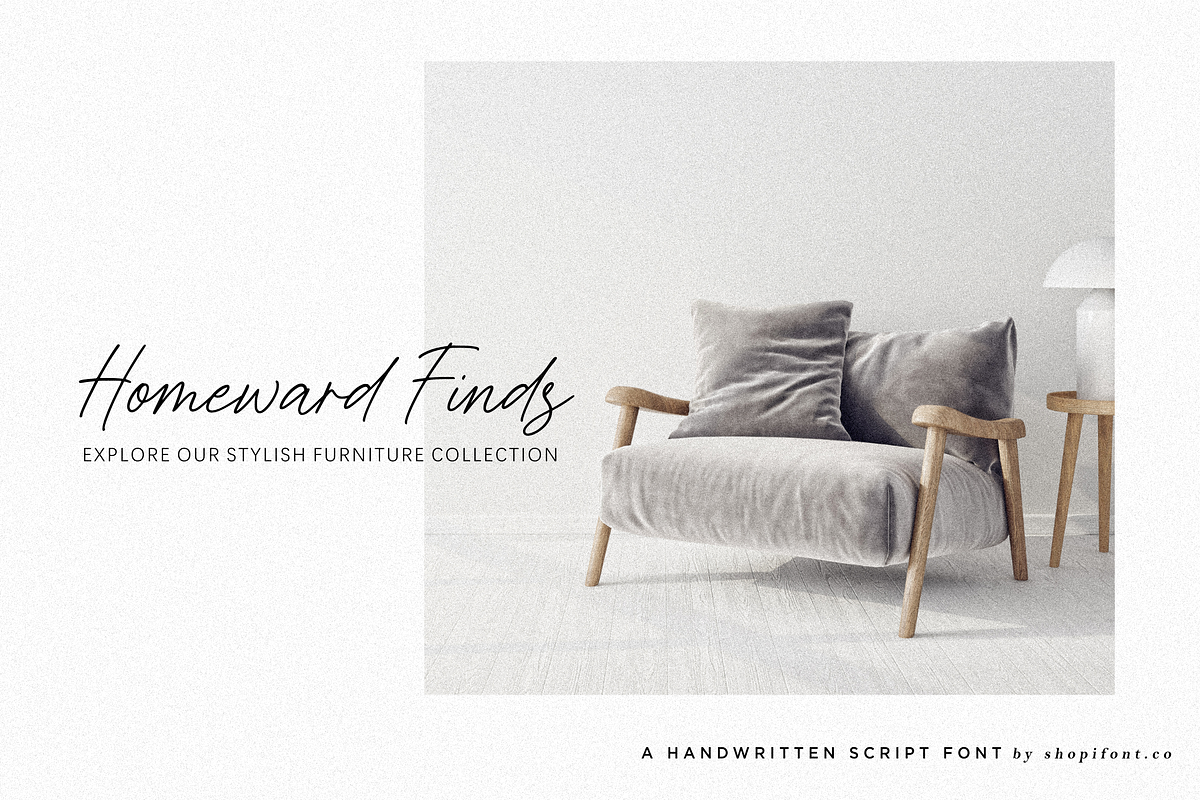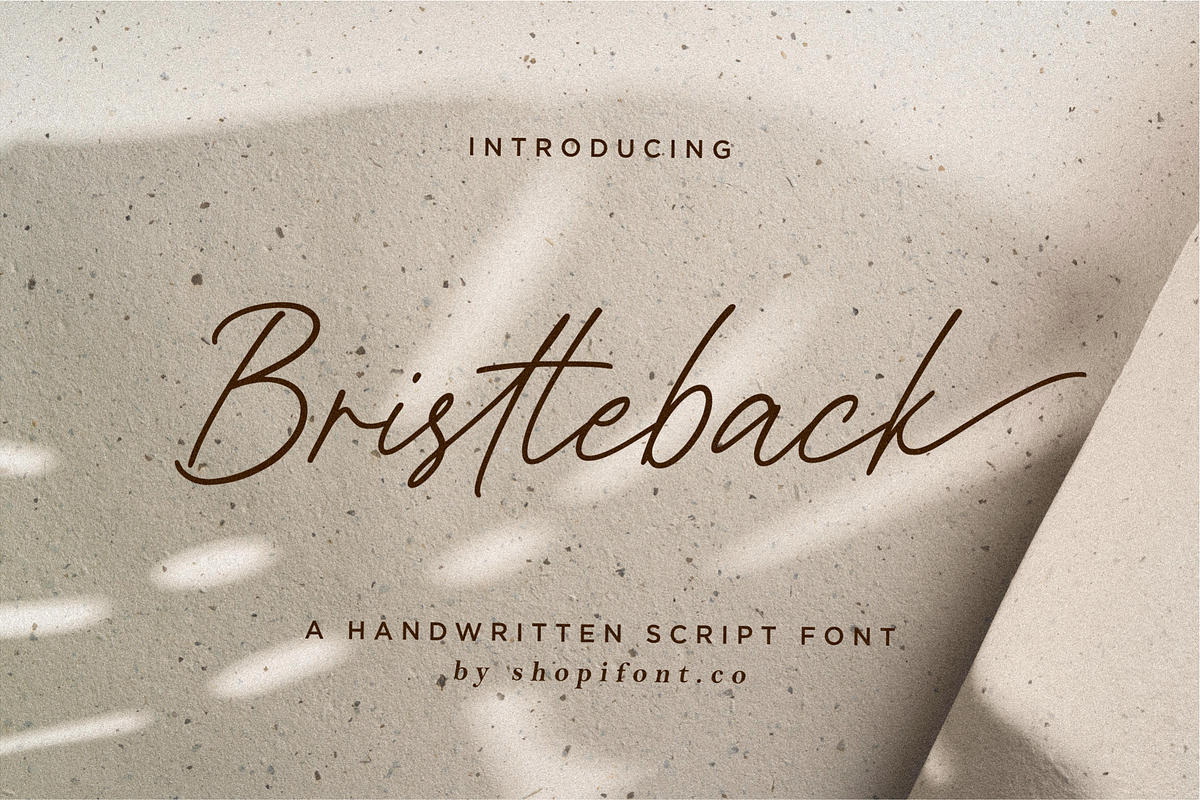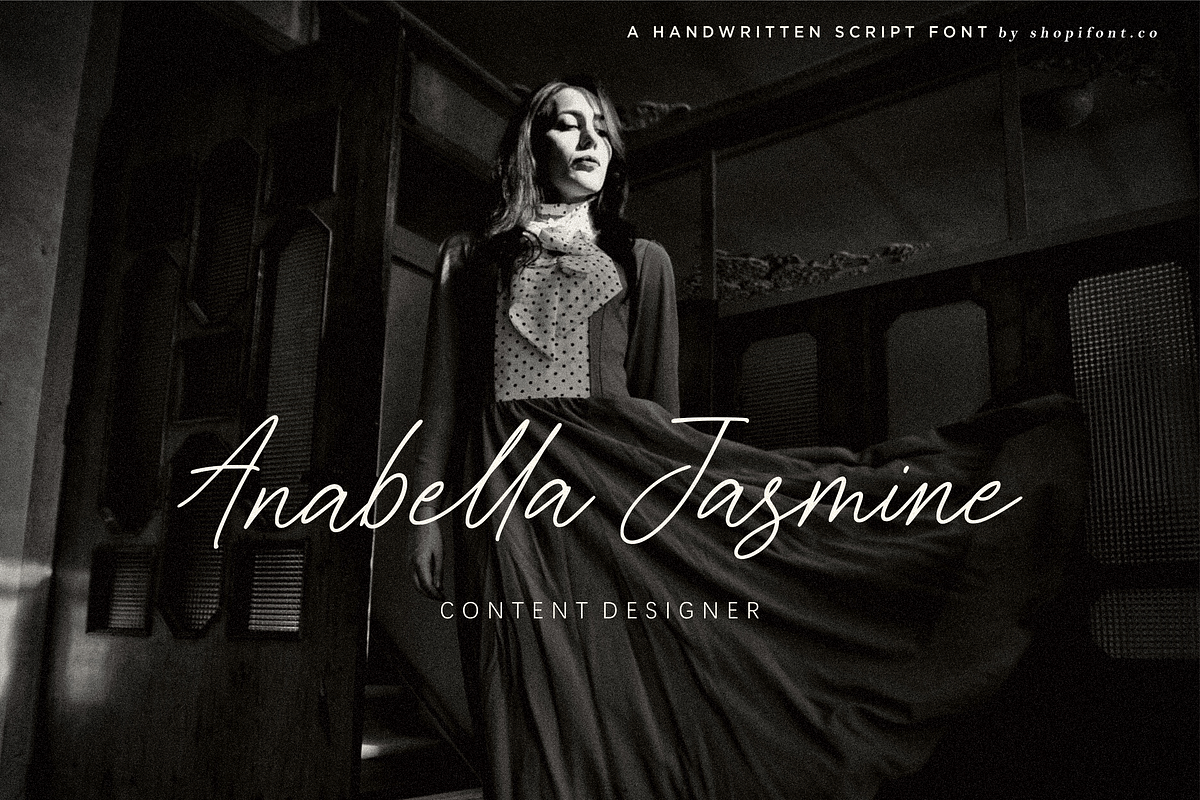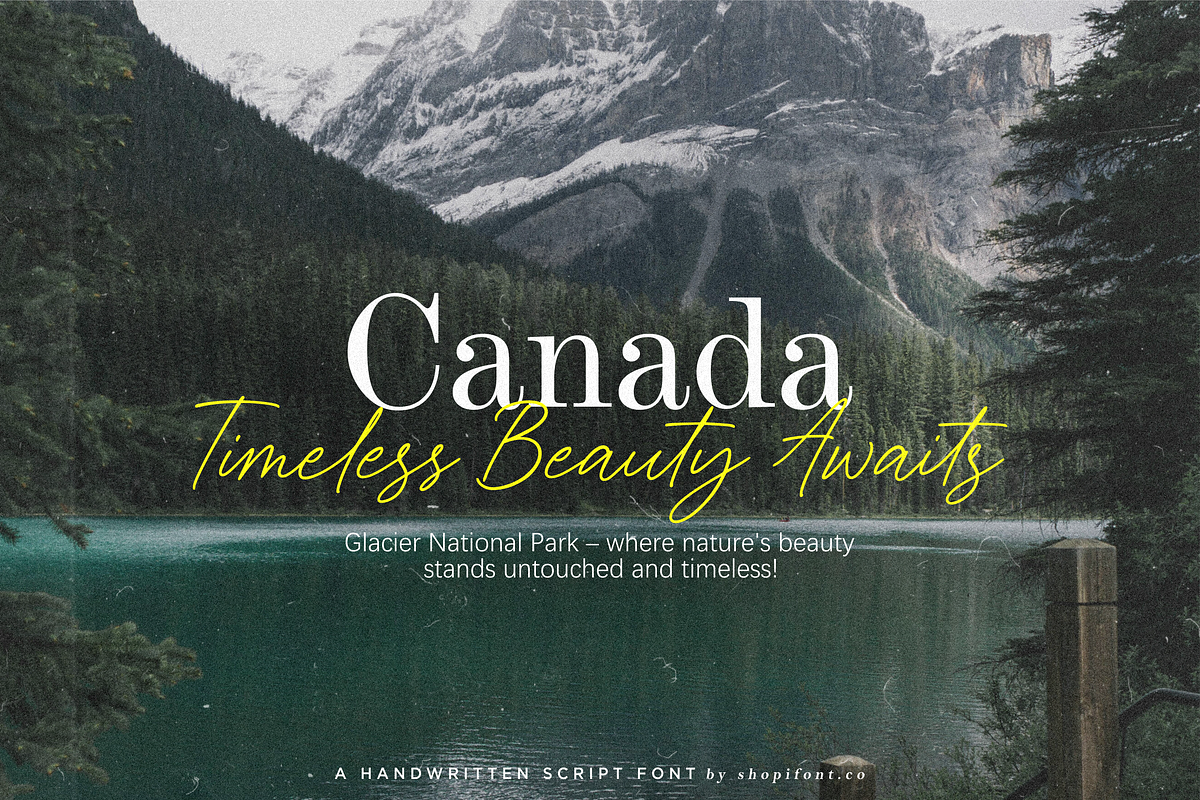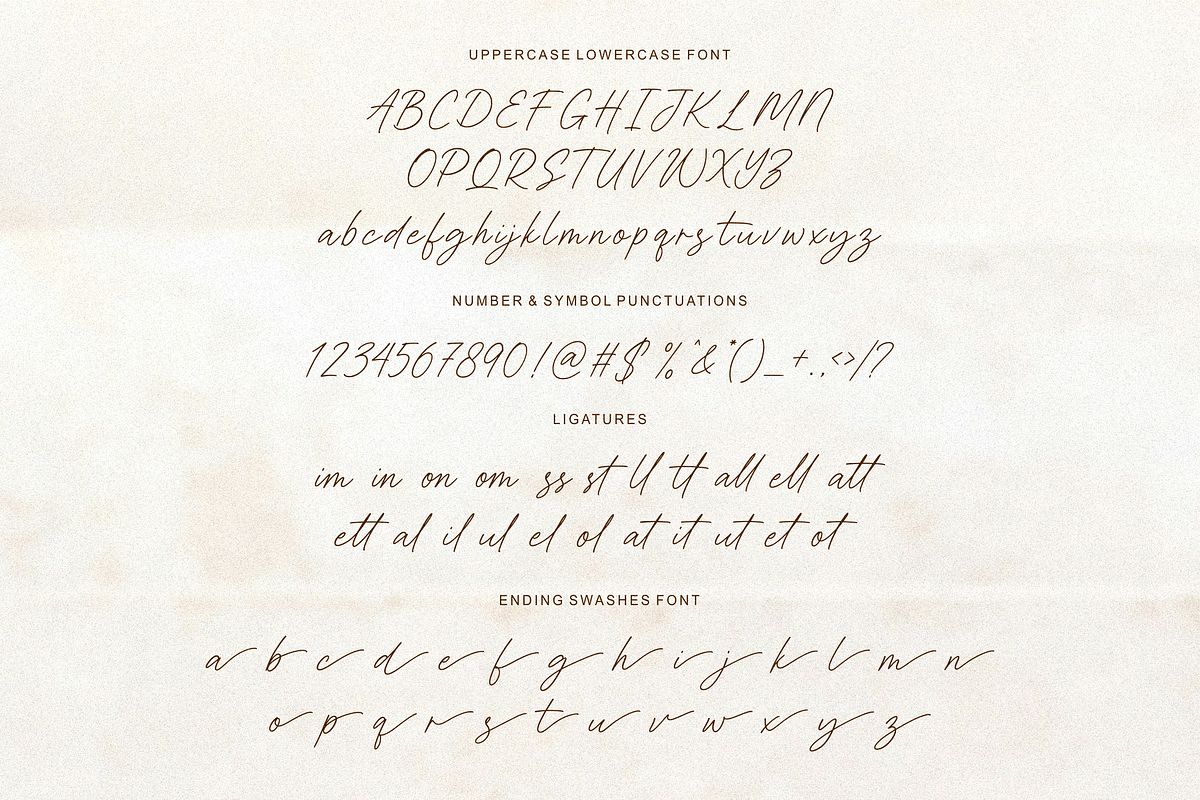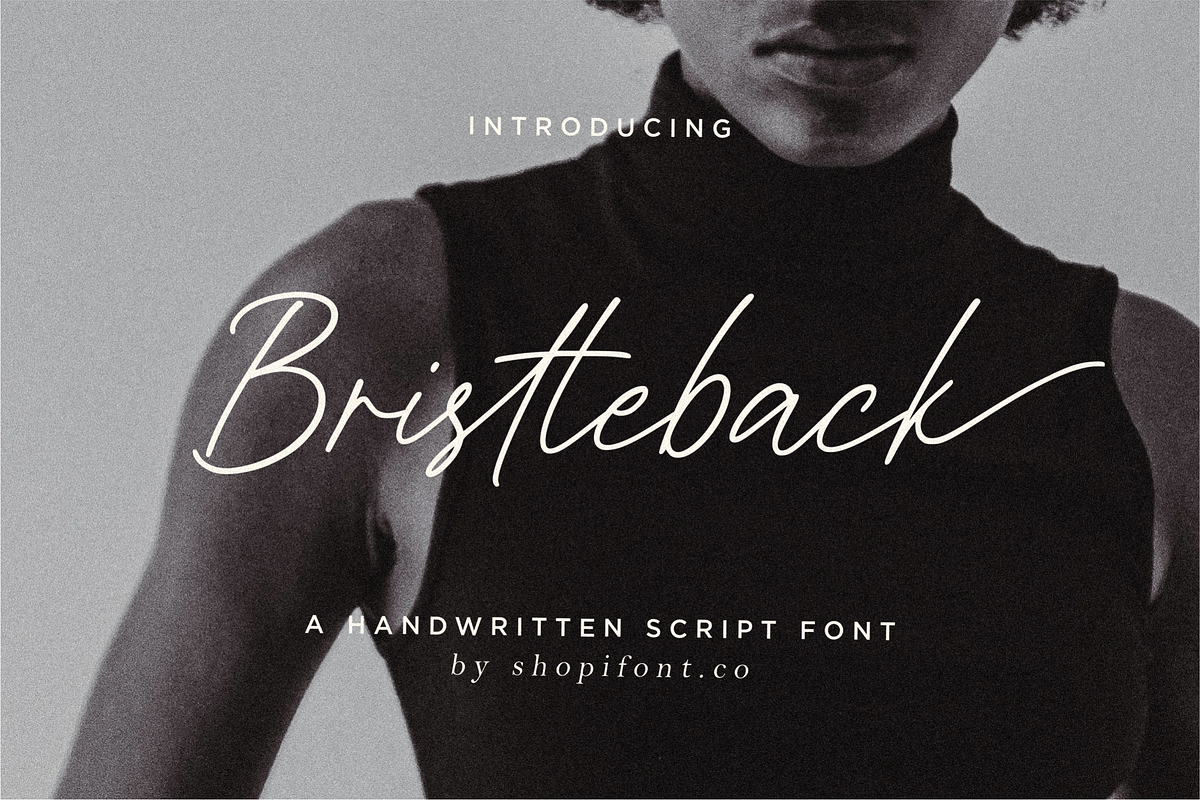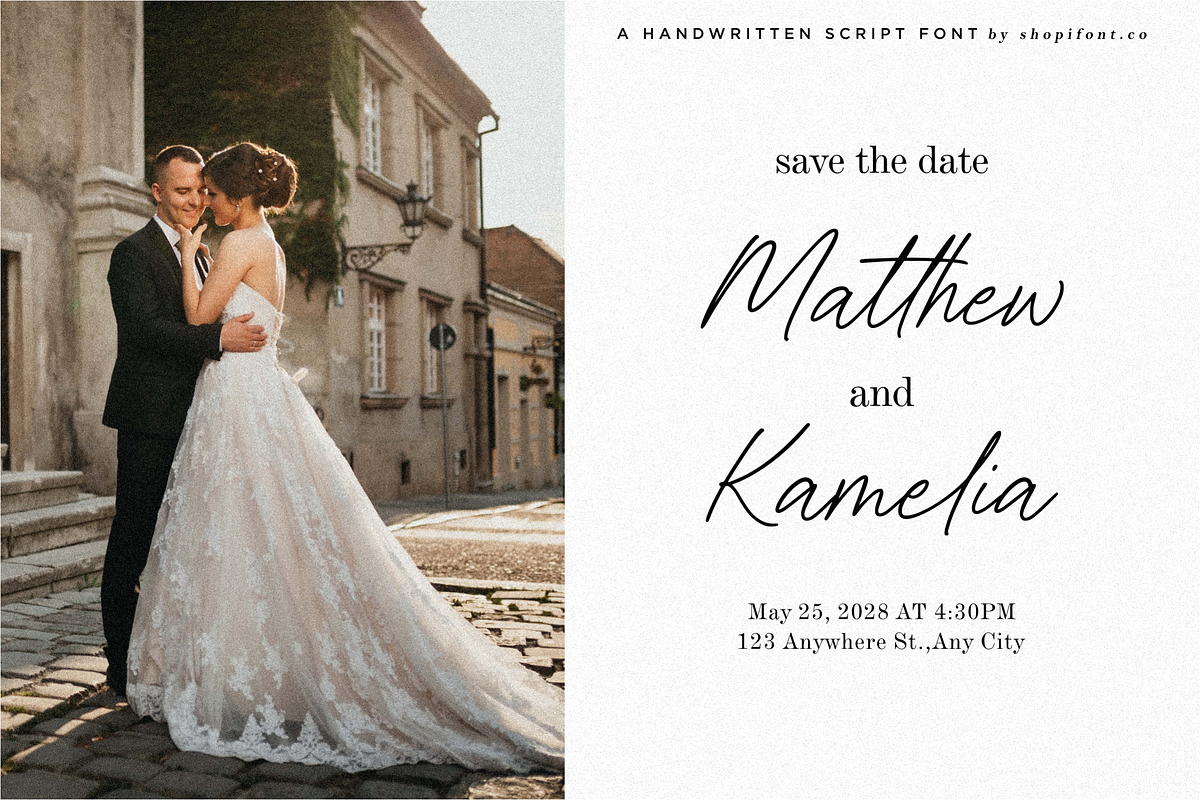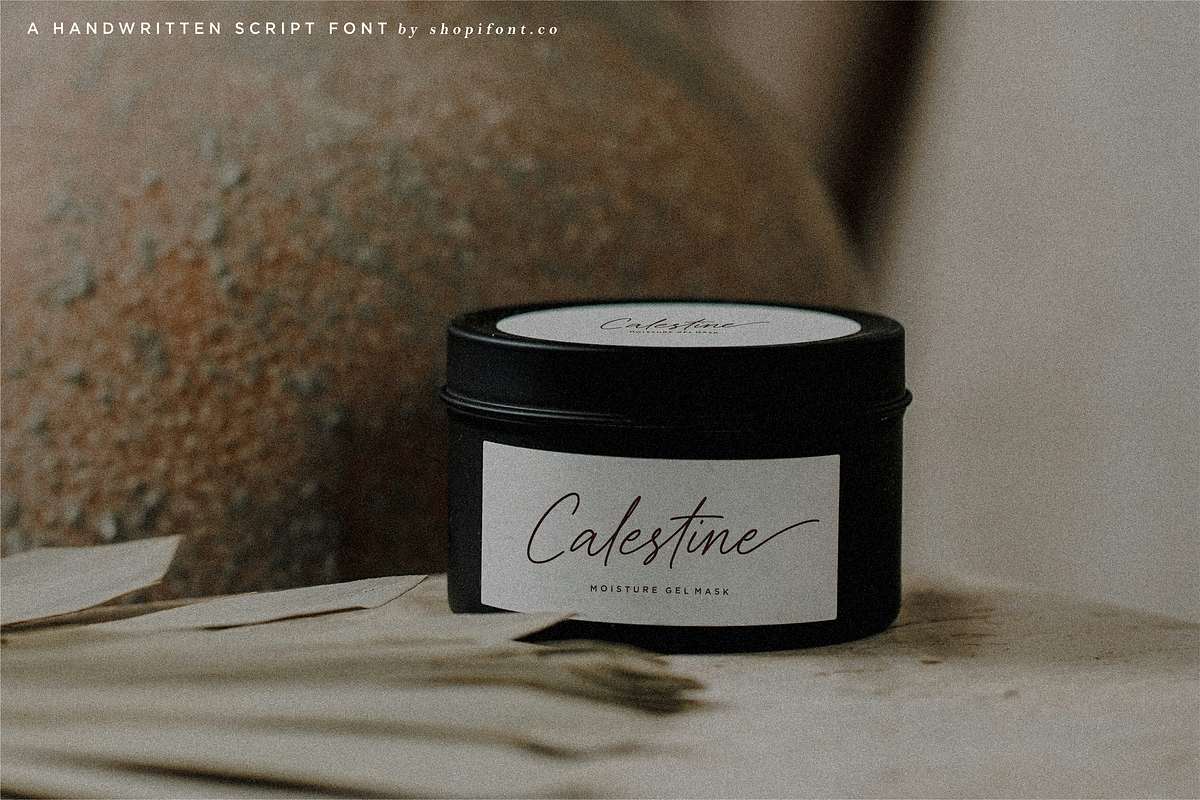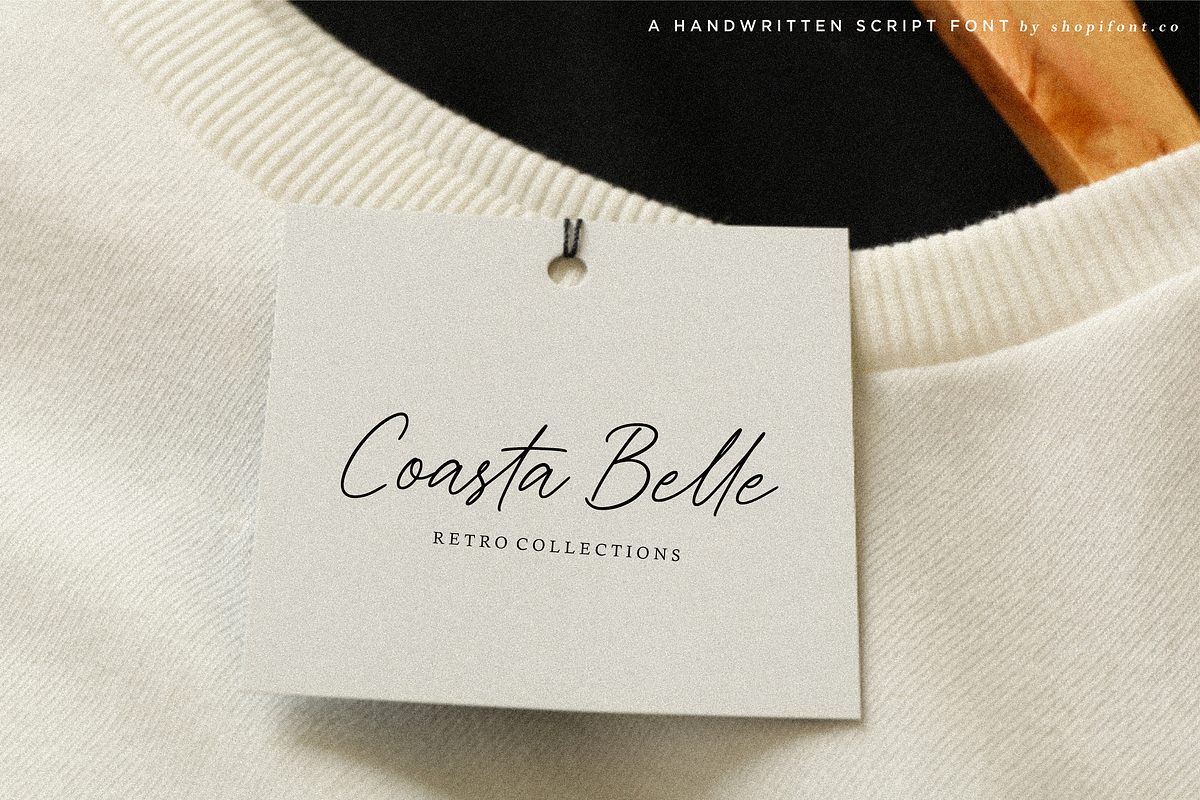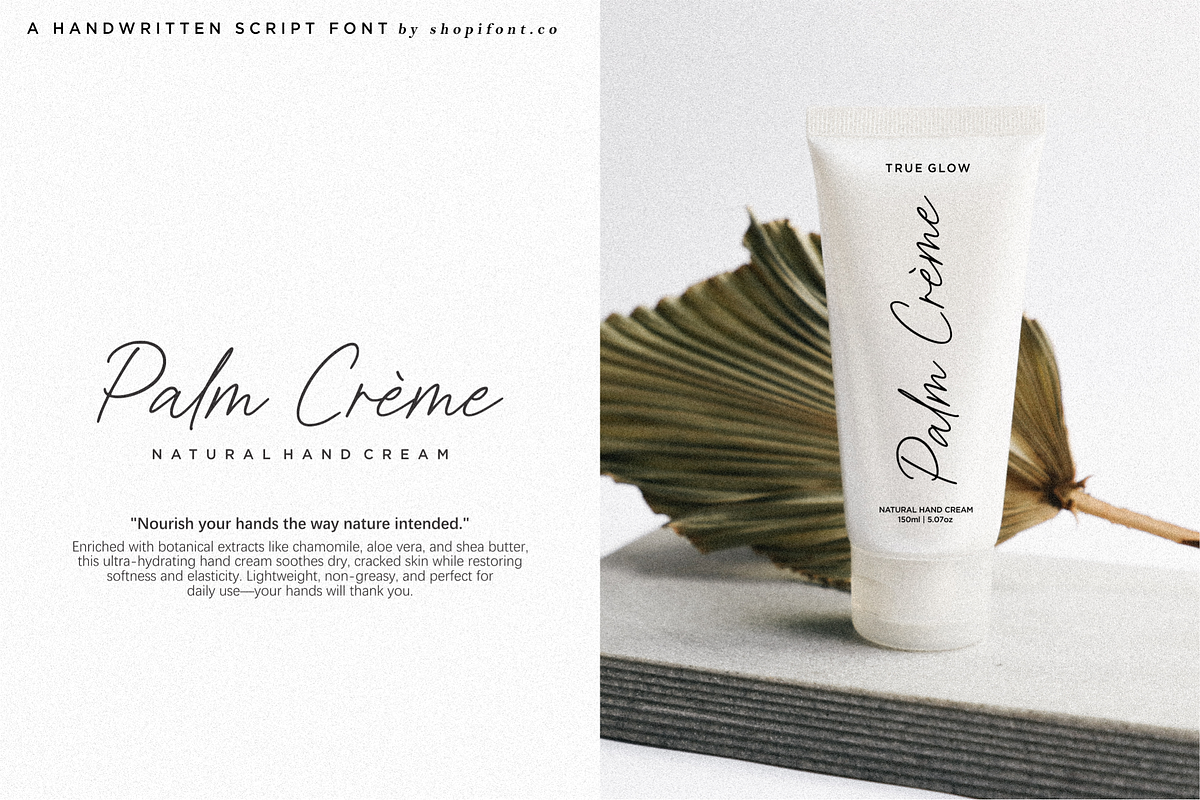
Bristleback
Proudly Present, Bristleback
Bristleback is A Handwritten Script Font Perfect for wedding, product packaging, branding project, magazine, social media, or just used to express words above the background on your best project.